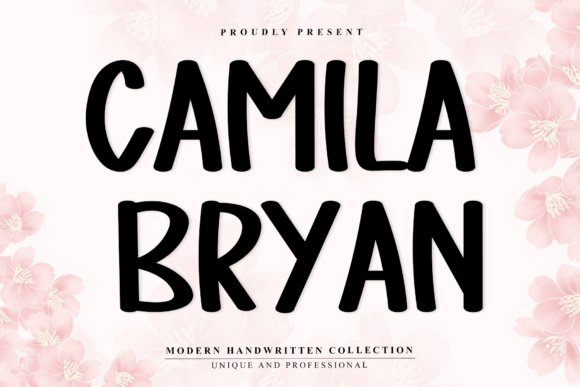
The Font that Stole My Heart: A Deep Dive into Camila Bryan Font
I’ll never forget the moment I stumbled upon Camila Bryan Font while working on a branding project for a client’s handmade jewelry line. I had spent hours scouring the internet for the perfect font, but nothing seemed quite right. That was until I saw Camila Bryan – with its tall, playful letters and modern vibe, it instantly captured my attention. In this article, I’ll share my experience with this beautiful font, its features, and how you can make the most of it in your designs.
An Honest Review of Camila Bryan Font
- ✨ **Clean and modern design**: Camila Bryan’s sleek lines and minimalist aesthetic make it perfect for a wide range of projects, from personal branding to product packaging.
- ✅ **Versatility**: This font shines in both digital and print formats, making it a great choice for designers who work across multiple mediums.
- 💫 **Playful yet professional**: The tall, energetic letters give Camila Bryan a youthful feel without sacrificing professionalism.
- 🎨 **OpenType features**: The font comes with a range of OpenType features, including stylistic alternates and glyphs, which allow for endless creative possibilities.
While Camila Bryan is an excellent font, there are a few things to keep in mind:
- ⚠️ **Limited use in body text**: Due to its elegant, handwritten nature, Camila Bryan is best suited for headings and titles rather than body text.
- 🤔 **Kerning issues**: As with any font, you may need to adjust the kerning to ensure optimal spacing between letters.
The Story Behind Camila Bryan Font
Camila Bryan Font was designed with the modern creative in mind. Its creator aimed to craft a font that would combine the elegance of traditional hand lettering with the playfulness of modern design. The result is a font that’s both versatile and eye-catching.
| Font Name | Camila Bryan Font |
| Author | Plafont store |
| What type of projects is Camila Bryan Font best suited for? | Camila Bryan Font is perfect for personal branding, creative projects, product packaging, and stylish headings. |
| Does Camila Bryan Font come with OpenType features? | Yes, Camila Bryan Font includes a range of OpenType features, including stylistic alternates and glyphs. |